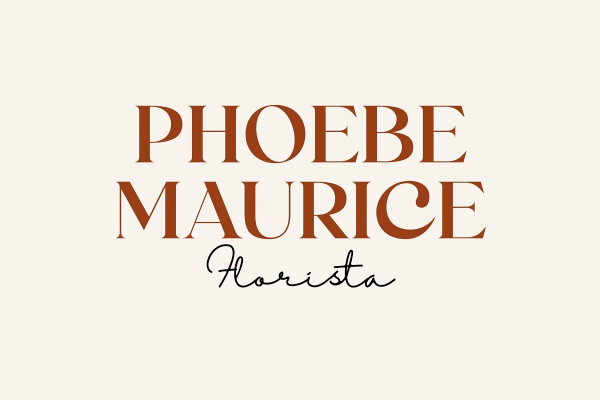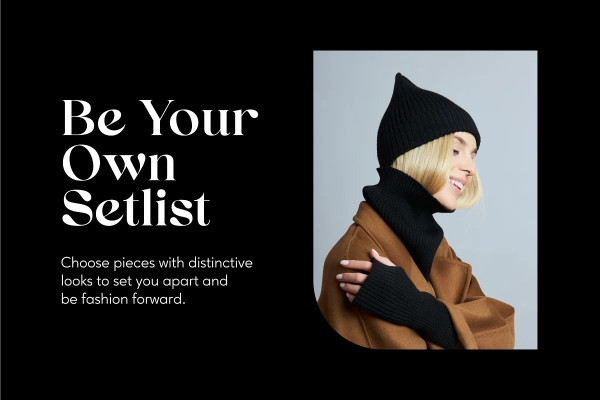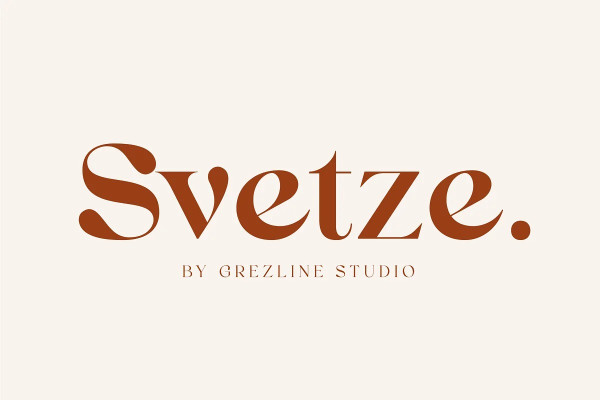
Svetze Font
Svetze Font is an elegant display font family consist of 4 weights. This font is crafted for fashion design purposes, but you can also use this font for other needs such as logos, labels, magazines, books, greeting / wedding cards, packaging, stationery, novels, labels and etc.